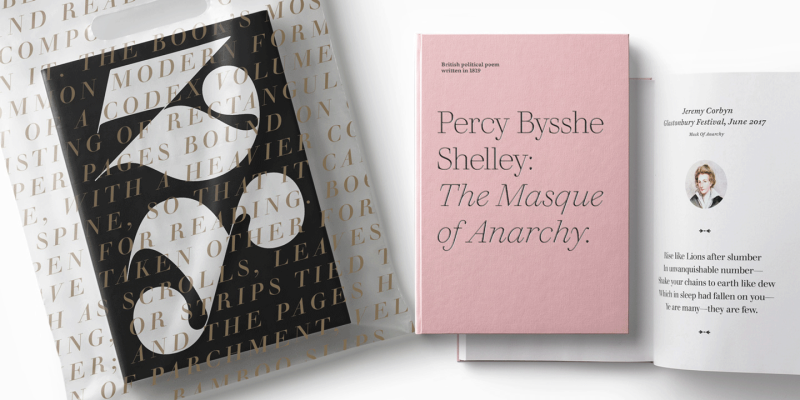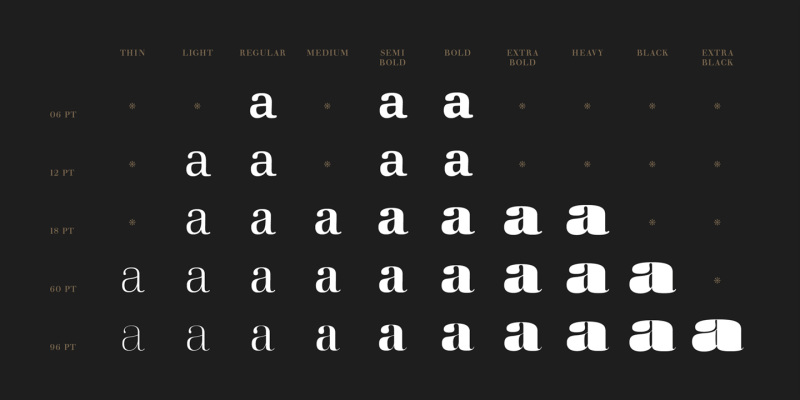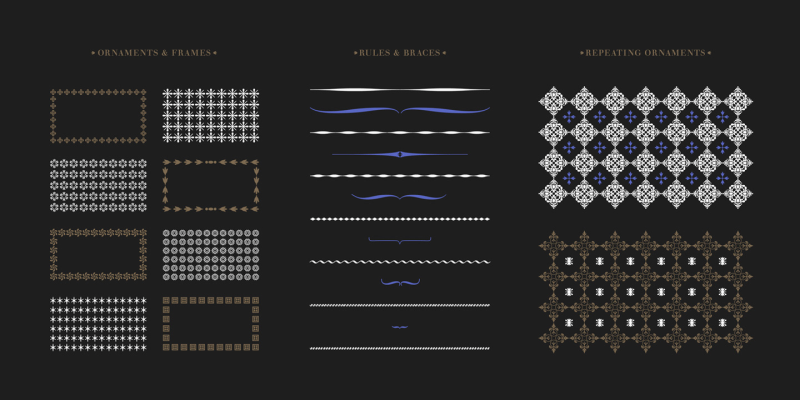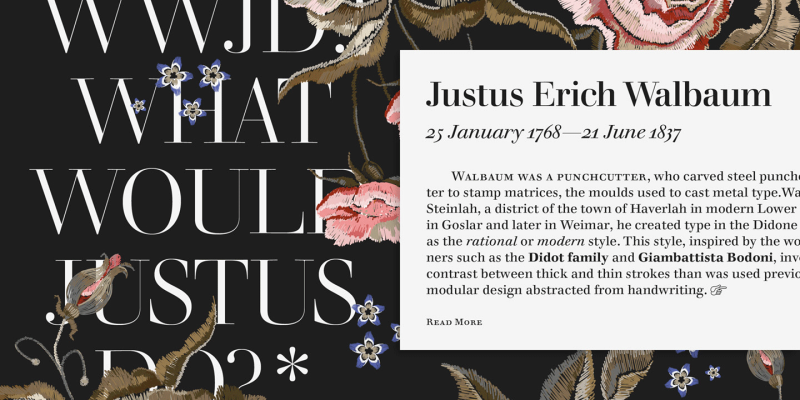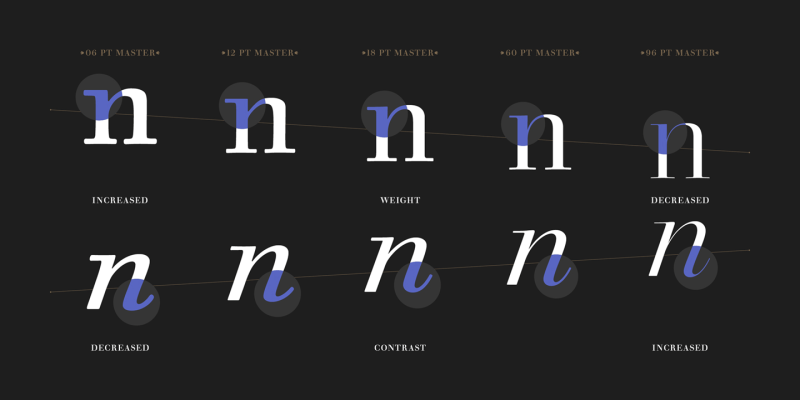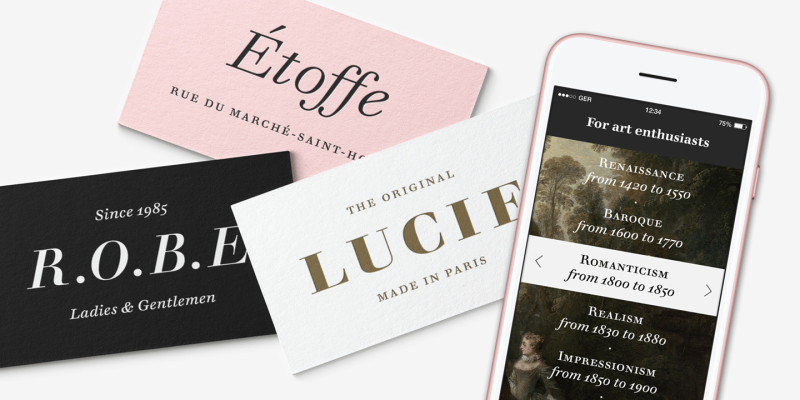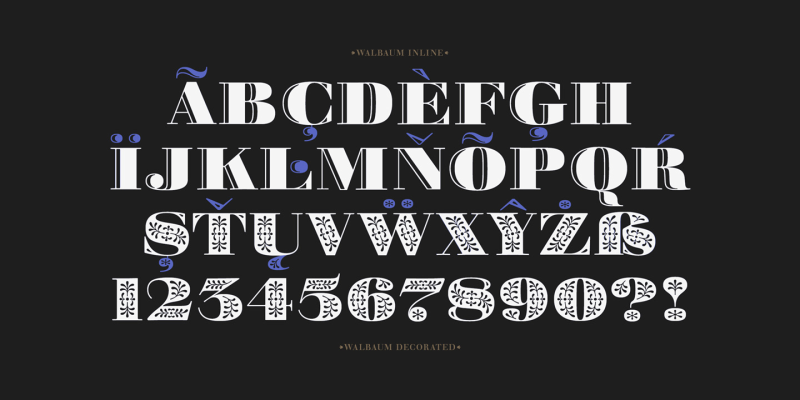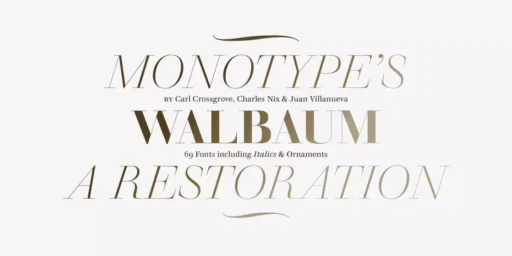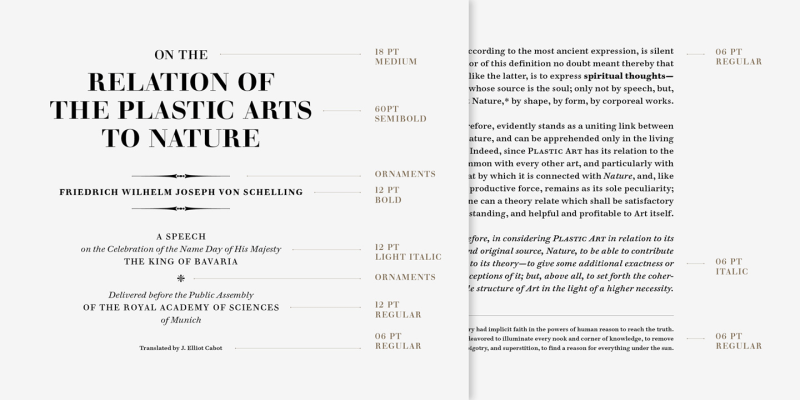
Walbaum Font
The Walbaum font is a timeless, classic typeface highly regarded in the design world. It is noted for its grace, refinement, and flexibility, which is why it is one of the favorites of designers and typographers. The font was developed by a German punchcutter and type designer, Justus Erich Walbaum, at the end of the 18th century. Since then, it has become a favorite in the design industry, with various uses in print media, advertising, and branding, among others.
The Walbaum font was created in the late 40s of the 18th century by Justus Erich Walbaum. Walbaum was a famous punchcutter and type designer known for his careful attention to detail and original designs. The typeface was created to bring the elegance associated with Didone typefaces and improve their legibility and readability.
With time, some changes and adjustments took place to make the font suitable for the changing design industry. Several versions of the typeface were developed, each with their peculiarities and variations. These changes kept the font alive and famous throughout the years, making it a timeless choice for designers.
Walbaum font is representative of typefaces with a high contrast between the thick and thin strokes, which makes the typeface look elegant and sophisticated. The letterforms are very well proportioned, with ascenders and descenders that are quite tall, all of which contribute to the air of grace with which the font presents itself. The serifs are fine and soft, adding to the elegance of the font.
The Walbaum font is one of the unique fonts that can be used in various design applications. It is pretty versatile, functioning well in both large display sizes and small body text, and therefore fits with multiple projects. The font’s legibility and readability are also worthy, making it a viable option for both print and digital media.
Although the Walbaum font has its own characteristics, there are quite a number of other fonts that are nearly alike. Minion Pro is one such typeface, and it is also from the Didone classification. Its high contrast and sharp serifs are similar to those of the Walbaum font. Nevertheless, Bodoni is somewhat more geometric and contemporary than Walbaum.
Didot is another typeface that has characteristics similar to those of Walbaum. Another Didone typeface, Didot, like Walbaum, is elegant and stylish. Nevertheless, Didot has a stronger thick-thin stroke contrast that results in a more dramatic look than Walbaum.